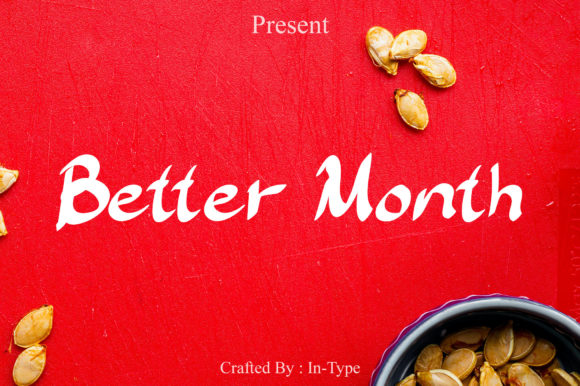
Introducing the Better Month Font, an exquisite script font that will elevate your creations to new heights of elegance and charm. This remarkable font family is meticulously crafted with an unmatched attention to detail, capturing the timeless essence of classic calligraphy while infusing it with a contemporary flair.
Step into a world of typographic brilliance where every letter dances across the page with unmatched grace and fluidity. The Better Month Font boasts a perfect balance of thickness and thinness, creating a visual symphony that delights the eyes. Each stroke flows effortlessly, inviting you to explore the boundless possibilities of self-expression.
Whether you're a discerning designer, a passionate blogger, or simply someone who appreciates the beauty of typography, the Better Month Font is your key to unlocking a world of creative possibilities. Let your imagination soar as you craft stunning logos, captivating headlines, and enchanting social media posts that will leave an unforgettable impression.
Indulge in the pure joy of expressing yourself through the timeless art of typography. Download the Better Month Font today and embark on a journey where words come alive with emotion and elegance. Elevate your projects, captivate your audience, and create a lasting impact with every stroke of your pen.